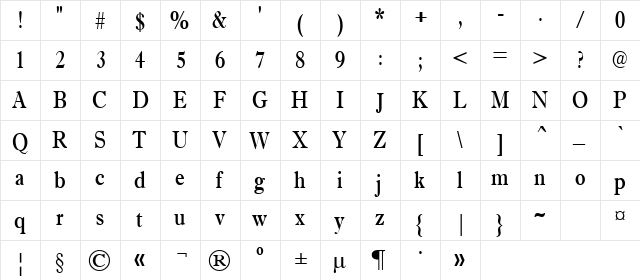
a_AntiqueTradyNr Regular
Design Context for a_AntiqueTradyNr Typeface
a_AntiqueTradyNr has the warm character of retro typography — evoking diners, record sleeves, and the golden age of print advertising.
Font Pairing: Combine a_AntiqueTradyNr with a simple slab or neutral sans — period-accurate companions reinforce the vintage feel without competing for attention.
Pro Tip: Lean into a_AntiqueTradyNr's period character by pairing it with aged paper textures, muted colour palettes, and vintage illustration styles.